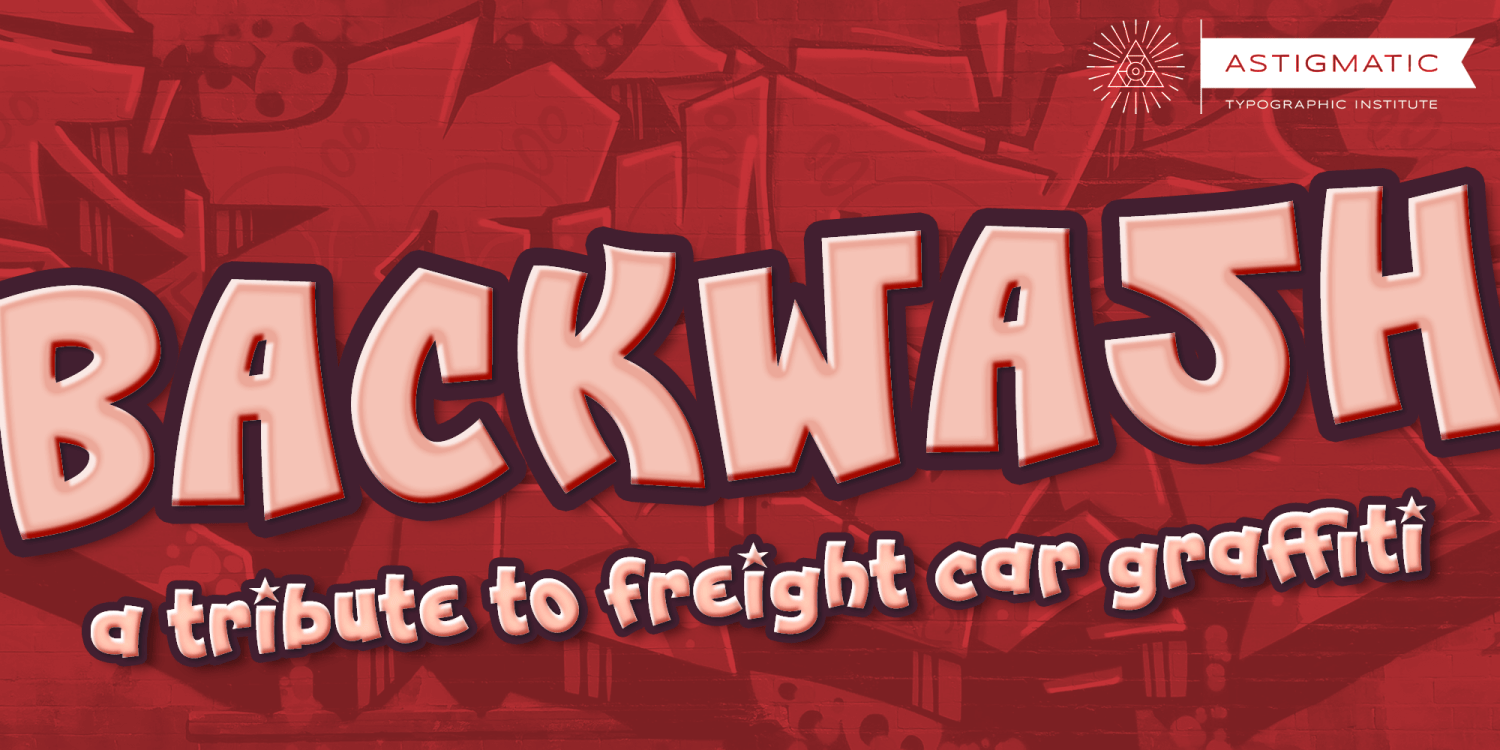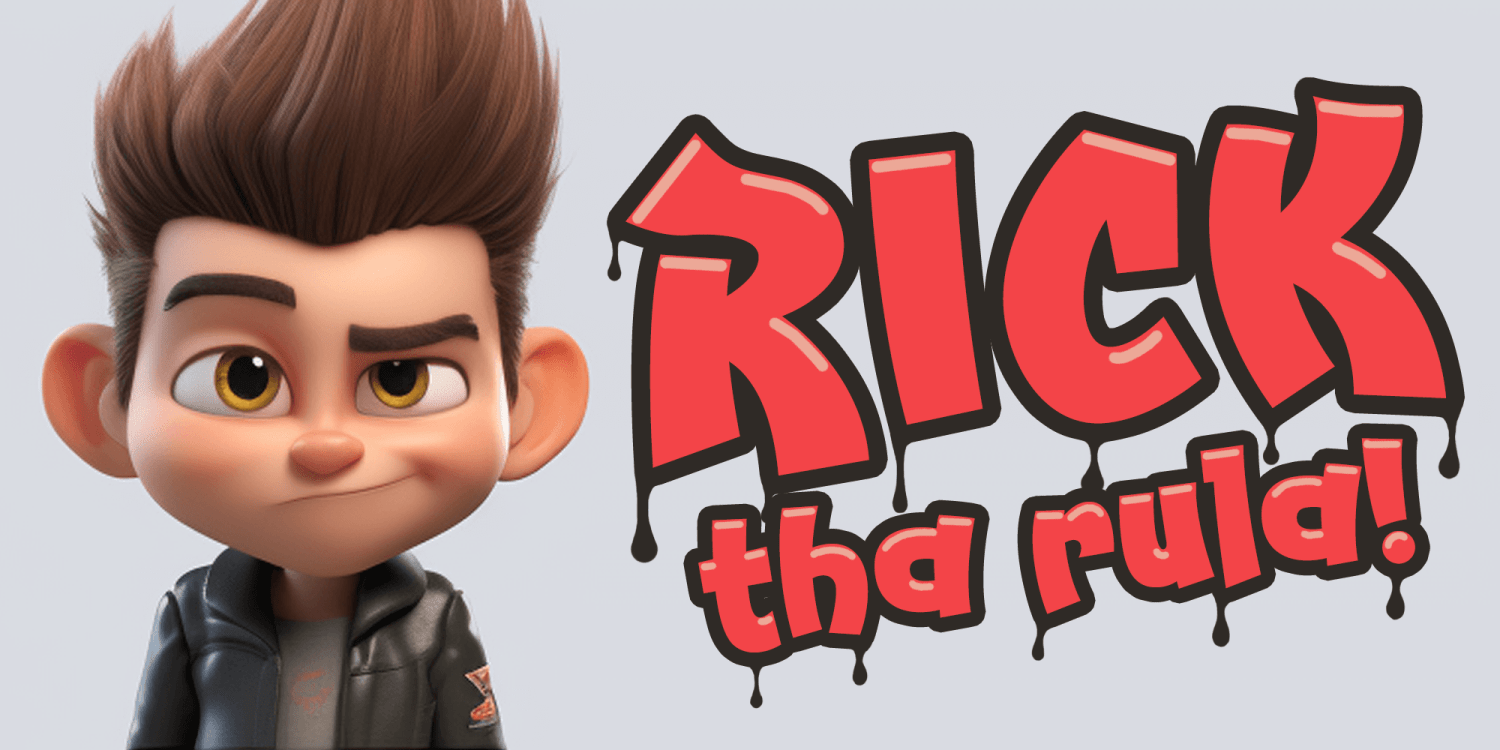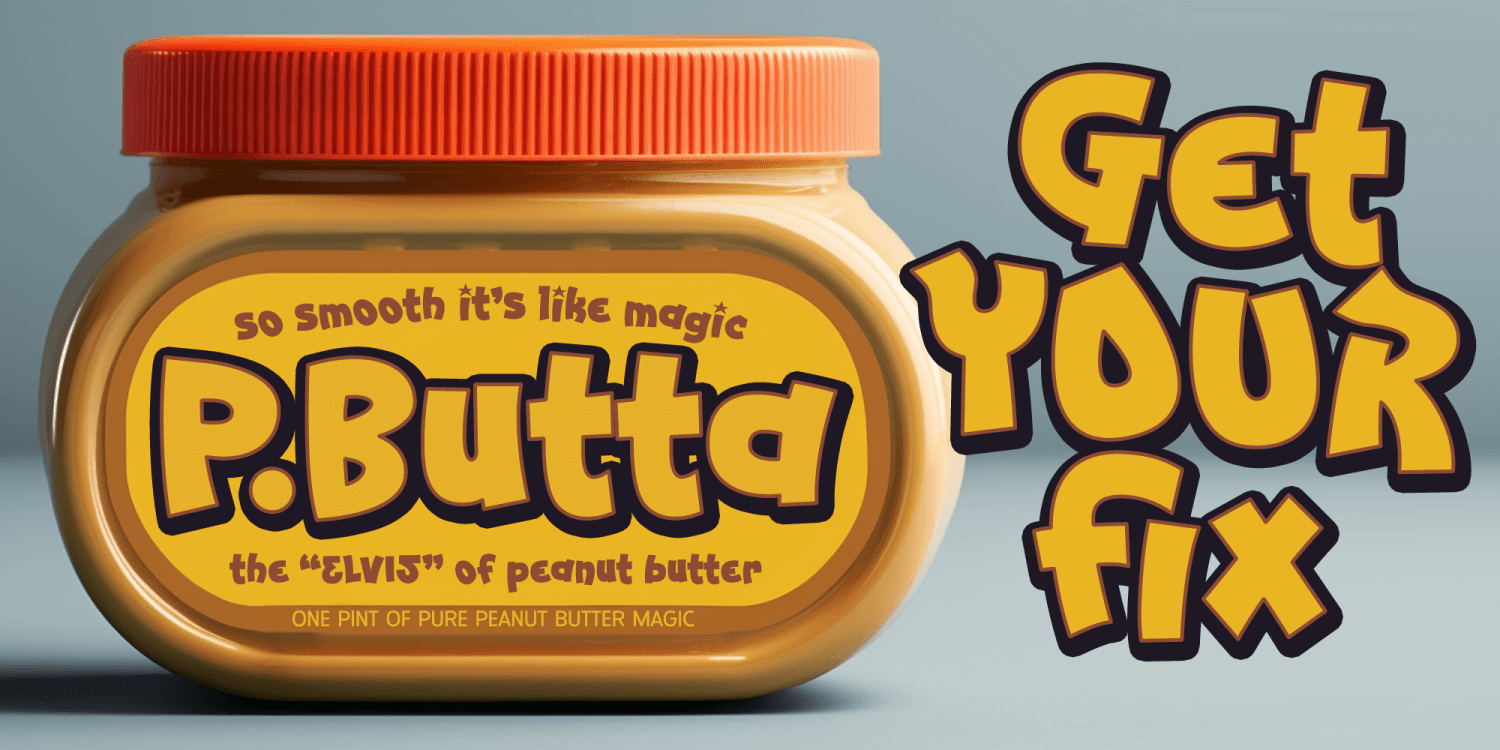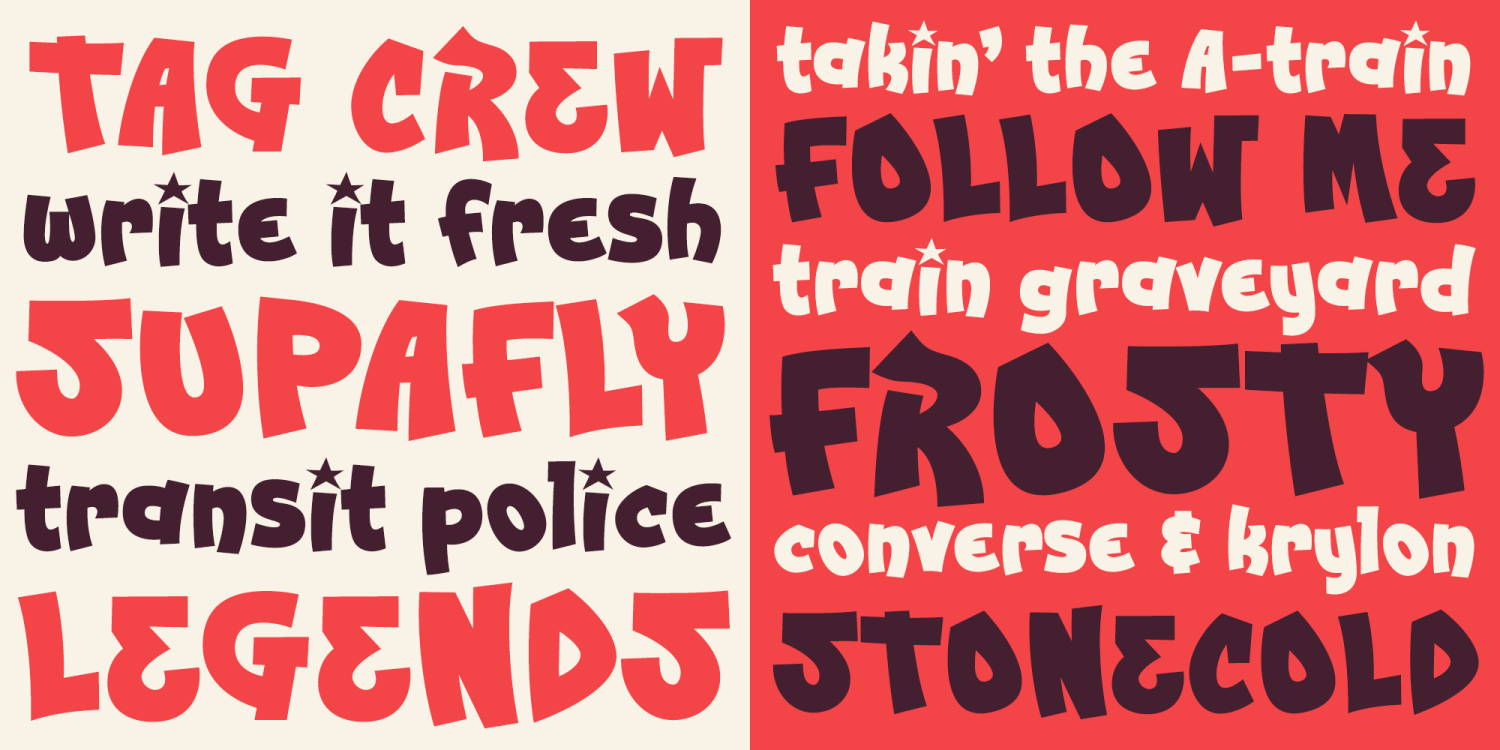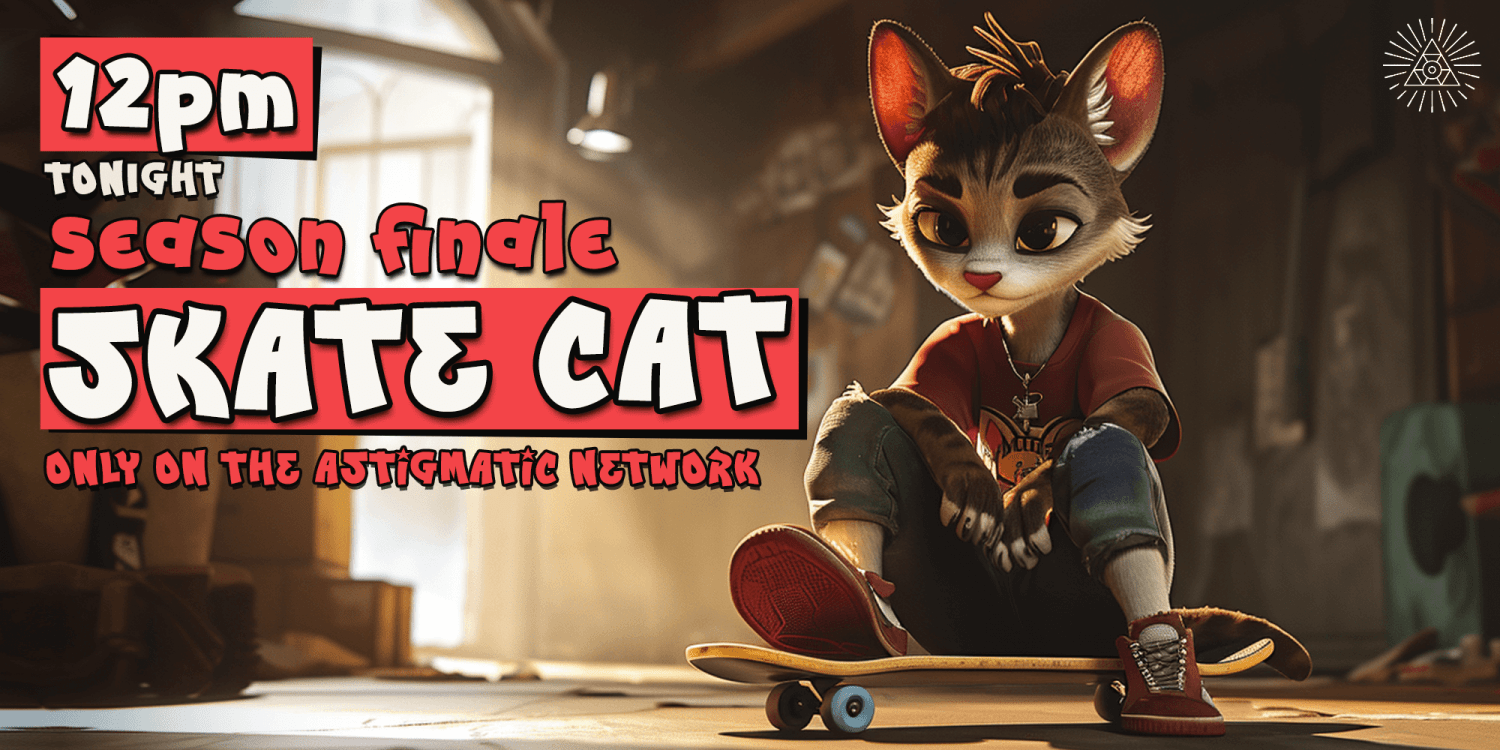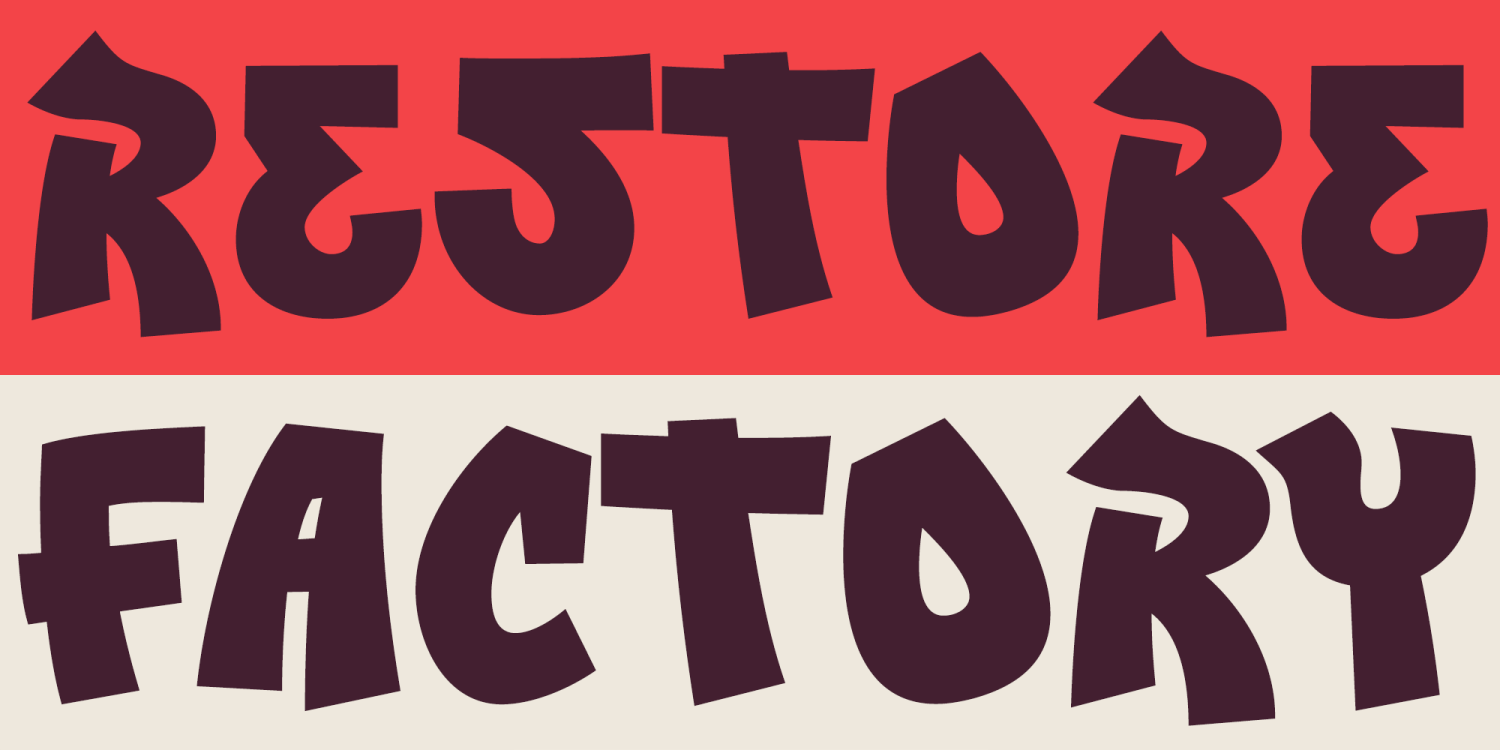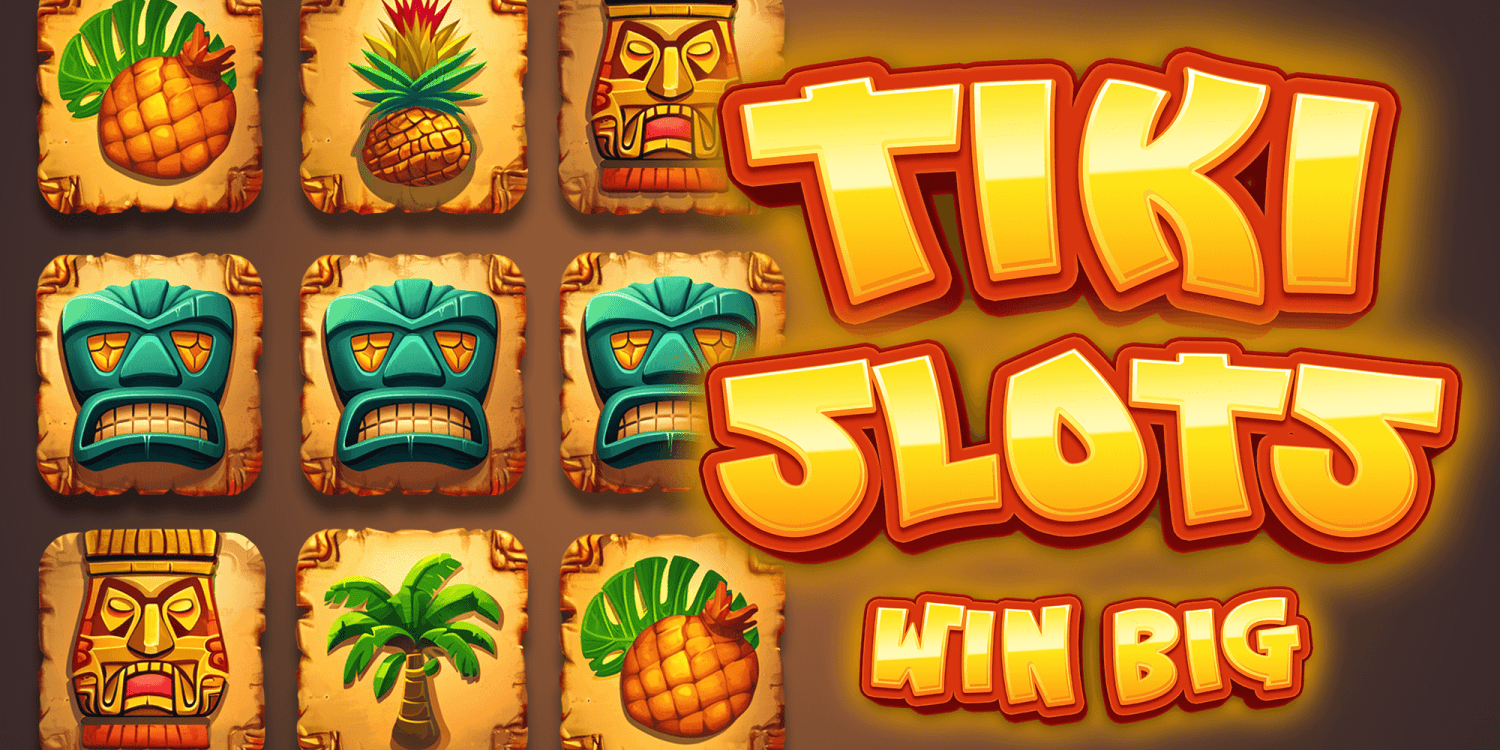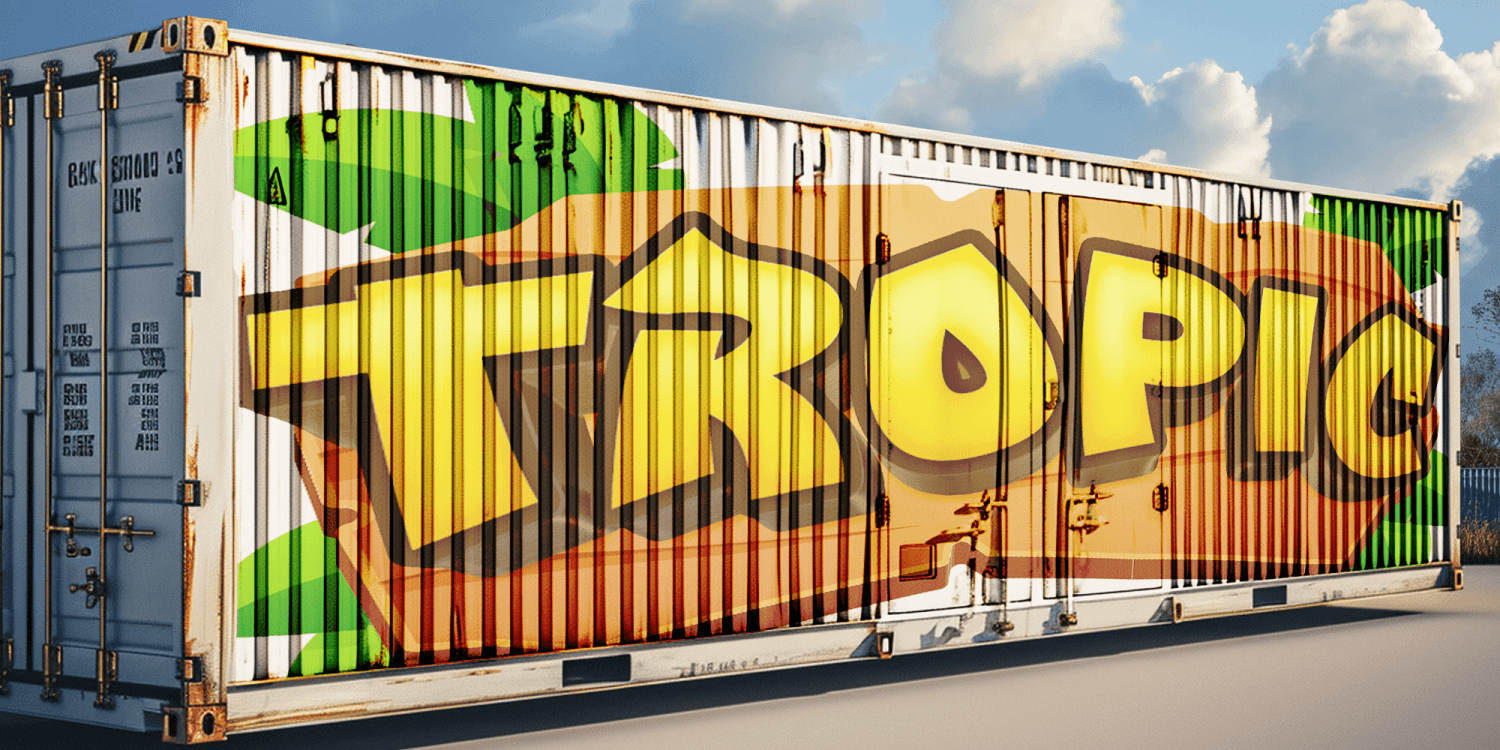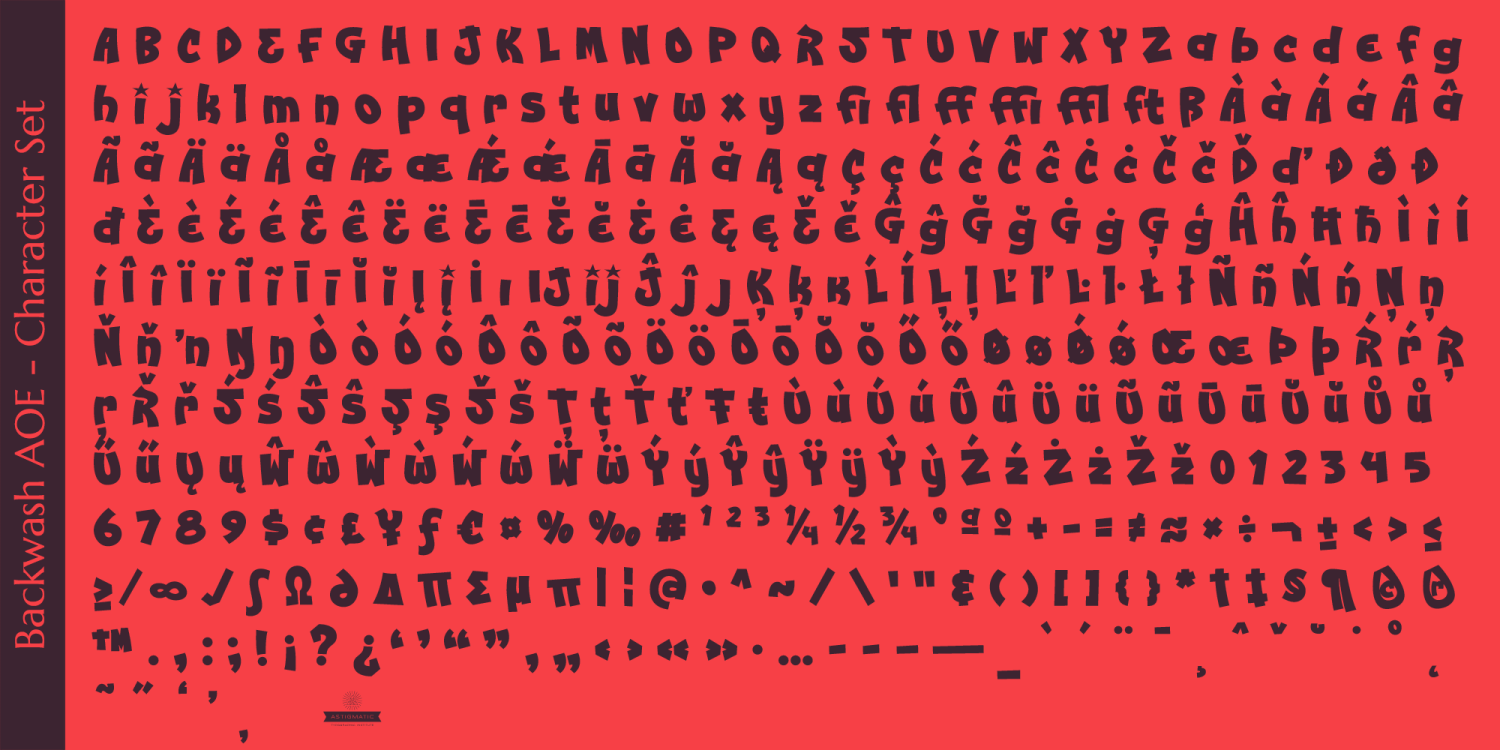
Backwash AOE
Font Family by Astigmatic One Eye
Backwash AOE is a typeface I drew up back in 2000 inspired by various graffiti artists. Coming across all of my sketches recently and seeing a trend lately in graffiti inspired styles, I finally came around to finishing it up digitally for release.
I love the break the rules, wildchild aspect, of graffiti lettering. And while this typeface is nothing like the wilder inspirations that I spawned this typeface from, it has a more legible direction to it, retaining just the flavor of the originals. I hope you enjoy it.